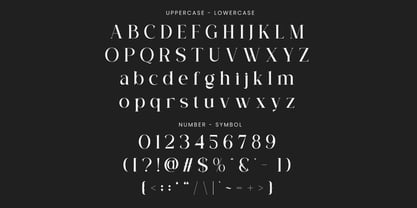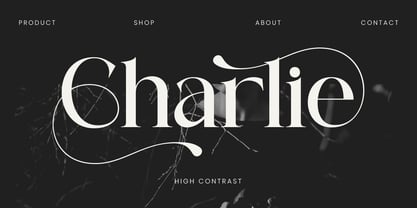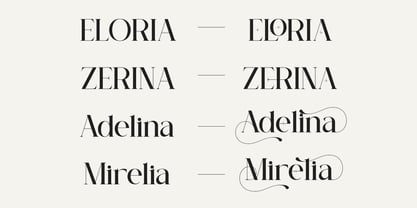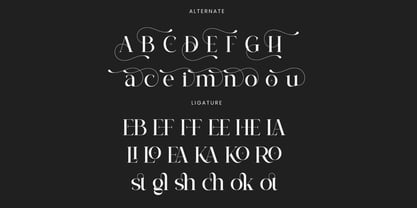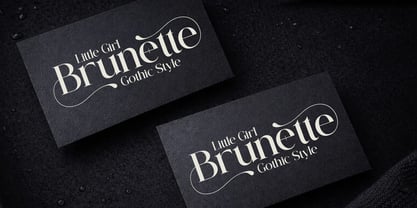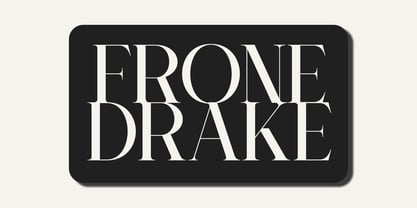
Veloria
by Qiubare Studio
The Veloria Font Family was designed by Michael Everson and published by Qiubare Studio. Veloria contains 1 styles.
Veloria is a modern high-contrast serif typeface designed specifically for editorial design and refined branding. It features elegant proportions, sharp serifs, and carefully crafted alternates that add character without sacrificing clarity. Built for headlines and display usage, Veloria performs beautifully across magazines, fashion editorials, luxury branding, and sophisticated digital layouts. With a balanced contrast and clean structure, it delivers a timeless yet contemporary typographic presence for both print and screen. Veloria is available with: - Uppercase & Lowercase - Numerals & Punctuation - Alternates & Ligatures - Multilingual Support